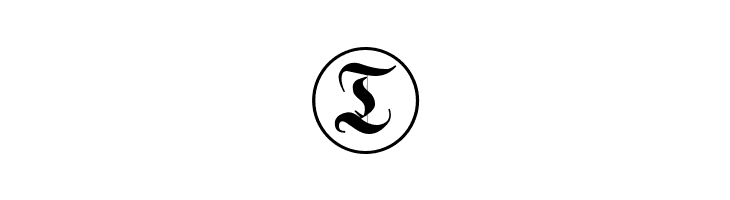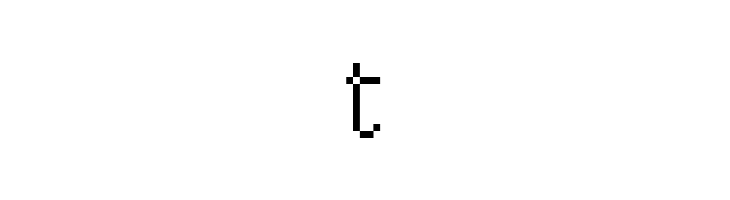
• Cutyle Monoline Script [Demo]
A graceful monoline script font with fluid, elegant strokes.
• CuxhavenFraktur
A traditional Blackletter font with ornate, angular letterforms and a gothic aesthetic.
• CuxhavenInitialsRound
A bold, decorative blackletter font with circular borders and high contrast strokes.
• CuxhavenTimes
A bold and intricate blackletter font with gothic flourishes.
• CuxInitials
A bold, blackletter font with ornate, angular letterforms enclosed in squares.
• cuyabra Bold
A bold, geometric sans-serif font with rounded edges and uniform stroke width.
• cuyabra bold oblique
A bold, oblique font with a modern and dynamic style.
• cuyabra oblique
A sleek, modern oblique font with medium weight and geometric shapes.
• cuyabra Regular
A modern, rounded sans-serif font with a clean and approachable design.
• cv pixelado
( Valen Calanche - Valentina Calanche )
A pixelated, retro-style font with a geometric, grid-like appearance.